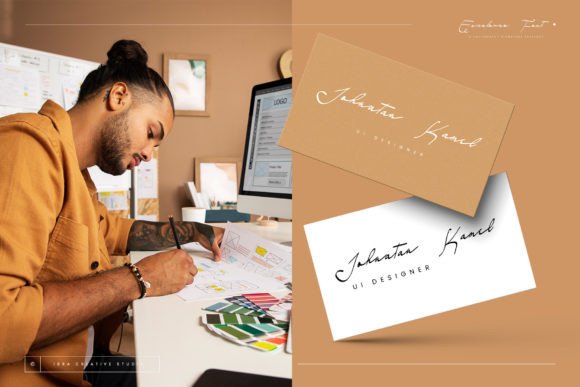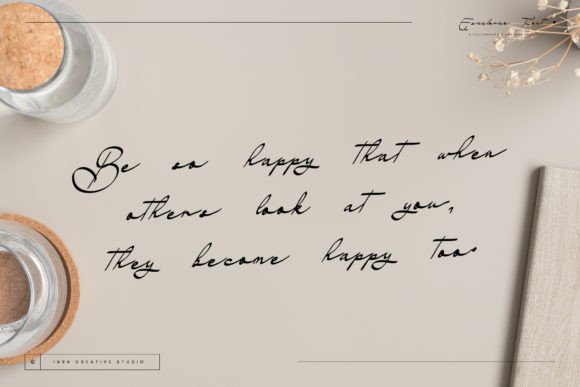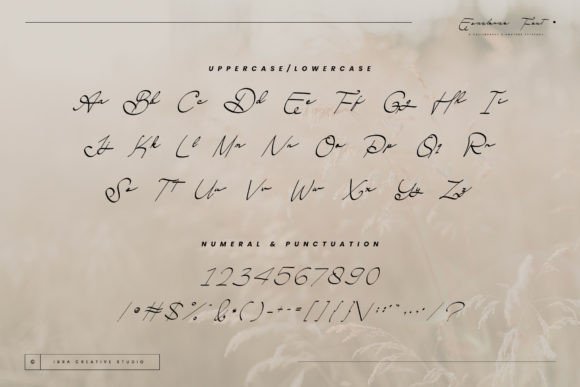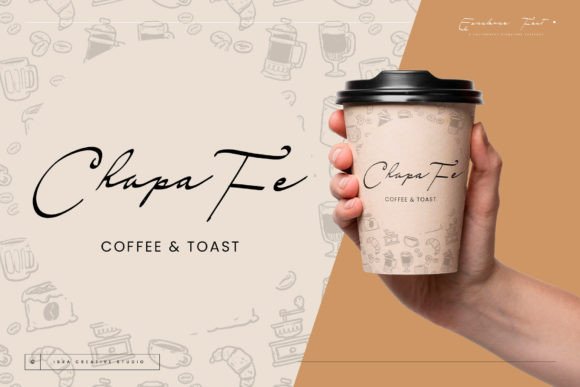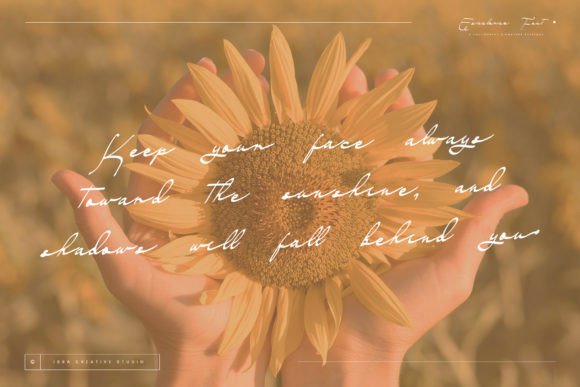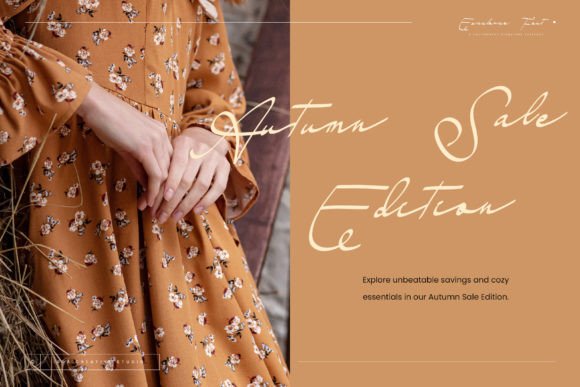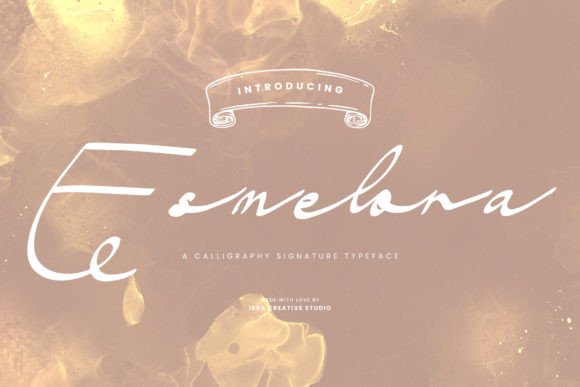
Esmelora Font: Elevate Your Designs with Elegance and Sophistication
In the world of typography, few fonts capture the essence of elegance and refinement as beautifully as Esmelora. This captivating calligraphy signature typeface is designed to bring a touch of sophistication and personal flair to any design project. With its graceful strokes and fluid lines, Esmelora exudes a sense of luxury and timeless beauty, making it an ideal choice for designers and crafters looking to elevate their work.
The Artistry of Esmelora
Esmelora’s design is rooted in the artistry of traditional calligraphy. Each letter is meticulously crafted to emulate the nuances of a hand-written signature, creating a sense of warmth and personality. The font’s delicate curves and stylish flourishes are a testament to the skill and craftsmanship that goes into its creation. Whether used for invitations, branding, or luxury-oriented projects, Esmelora lends an air of sophistication and refinement that is sure to impress.
A Harmonious Balance of Style and Tradition
What sets Esmelora apart from other calligraphy fonts is its ability to seamlessly blend traditional elements with a modern sensibility. The result is a harmonious balance of classic and contemporary styles that is both timeless and cutting-edge. This balance makes Esmelora an incredibly versatile font, suitable for a wide range of design applications, from wedding invitations and luxury branding to high-end packaging and editorial design.
Key Features of Esmelora Font
- Elegant Calligraphy Strokes: Esmelora’s strokes are characterized by their fluidity and elegance, giving the font its distinctive calligraphic feel.
- Delicate Curves and Flourishes: The font’s delicate curves and stylish flourishes add a touch of sophistication and luxury to any design.
- Hand-Written Signature Style: Each letter is crafted to emulate the artistry of a hand-written signature, creating a personal and unique touch.
- Modern Sensibility: Despite its traditional roots, Esmelora has a modern sensibility that makes it suitable for contemporary design projects.
Using Esmelora in Design Projects
Esmelora’s versatility and elegance make it an excellent choice for a variety of design projects. Here are a few ways designers and crafters can use Esmelora to elevate their work:
- Wedding Invitations and Stationery: Esmelora’s elegant strokes and sophisticated feel make it perfect for wedding invitations, save-the-date cards, and other stationery.
- Luxury Branding: For brands looking to convey a sense of luxury and sophistication, Esmelora is an excellent choice for logos, packaging, and marketing materials.
- Editorial Design: Esmelora’s classic yet modern style makes it suitable for editorial design projects, such as magazine covers, articles, and blog posts.
- Packaging Design: The font’s elegant feel and sophisticated style make it an excellent choice for high-end packaging design.
Esmelora font is a beautiful and elegant calligraphy signature typeface that brings a touch of sophistication and refinement to any design project. Its harmonious balance of traditional and modern elements makes it a versatile font suitable for a wide range of applications. Whether you’re a designer or crafter looking to elevate your work, Esmelora is an excellent choice for anyone seeking to add a touch of luxury and elegance to their designs.